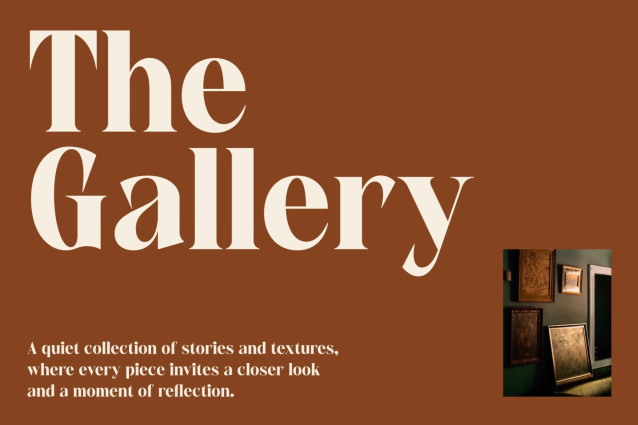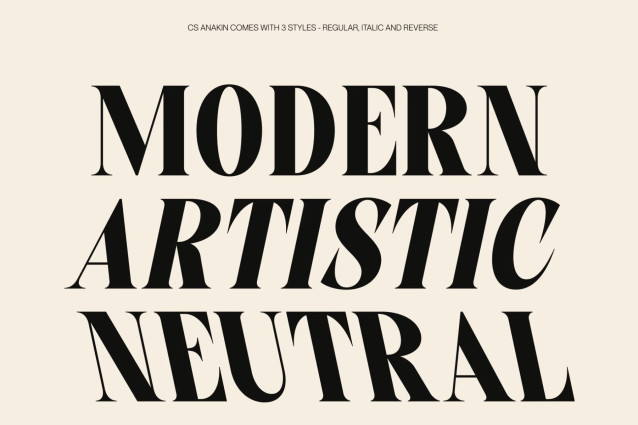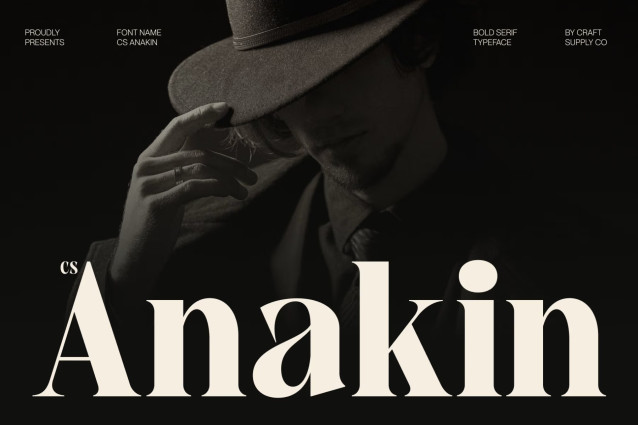
CS Anakin – Modern Serif Font
CS Anakin – Modern Serif Font: Where Timeless Elegance Meets Contemporary Refinement
Classic Serif Charm with Refined Boldness
This is a modern serif font that brings the timeless charm of classic serif typography into a clean, contemporary form. Its elegant structure, sleek serif detailing, and balanced proportions create a polished visual identity that feels both sophisticated and approachable. Designed to make a confident impression, it combines traditional refinement with modern clarity for exceptional versatility.
Contemporary Design with Timeless Appeal
This font offers a fresh interpretation of classic typography. Its harmonious proportions and graceful letterforms ensure excellent readability while adding a sense of prestige and elegance. The result is a font that feels equally suitable for heritage-inspired designs and modern luxury branding.